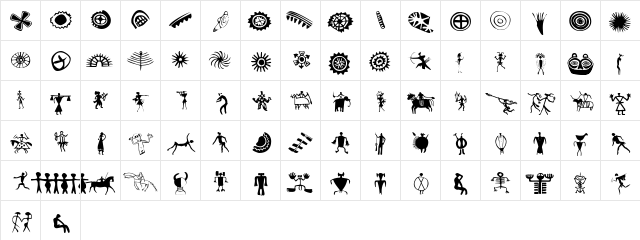
CavePaintingsTwo Regular
Design Context for CavePaintingsTwo Typeface
CavePaintingsTwo is a composed and adaptable typeface that performs quietly and consistently across a wide range of design contexts.